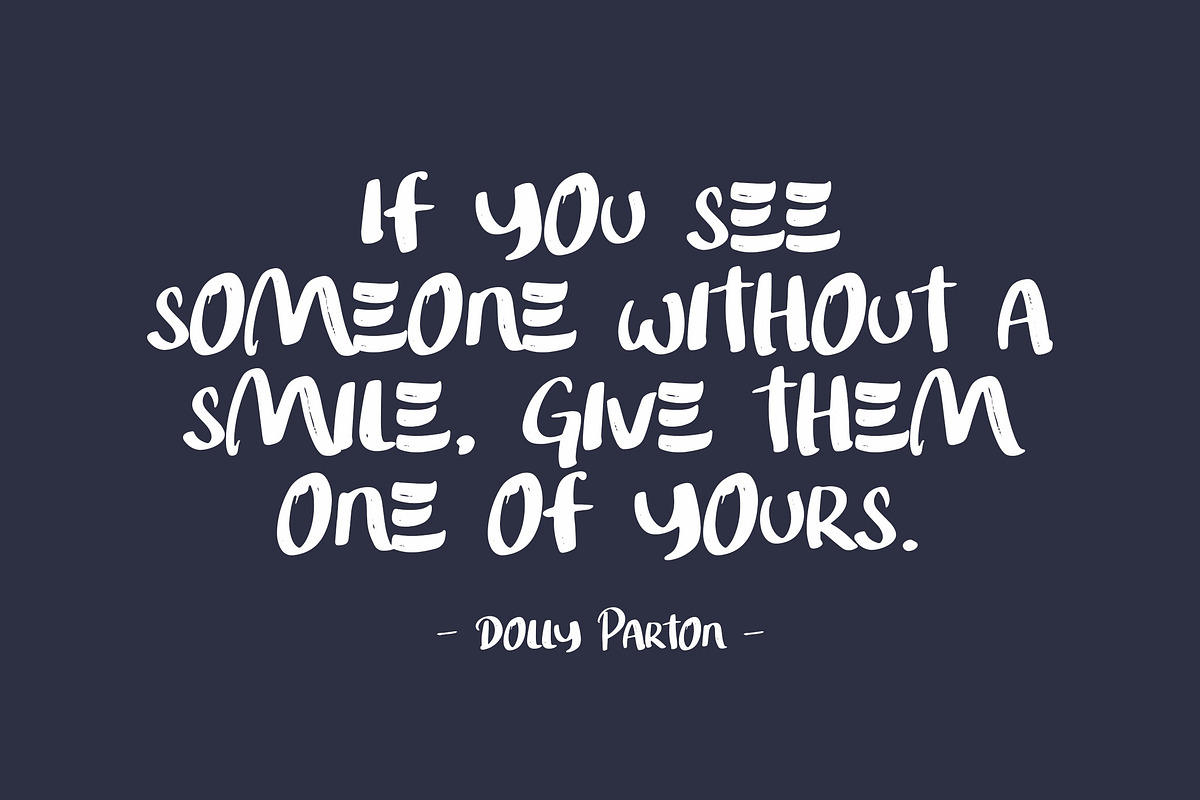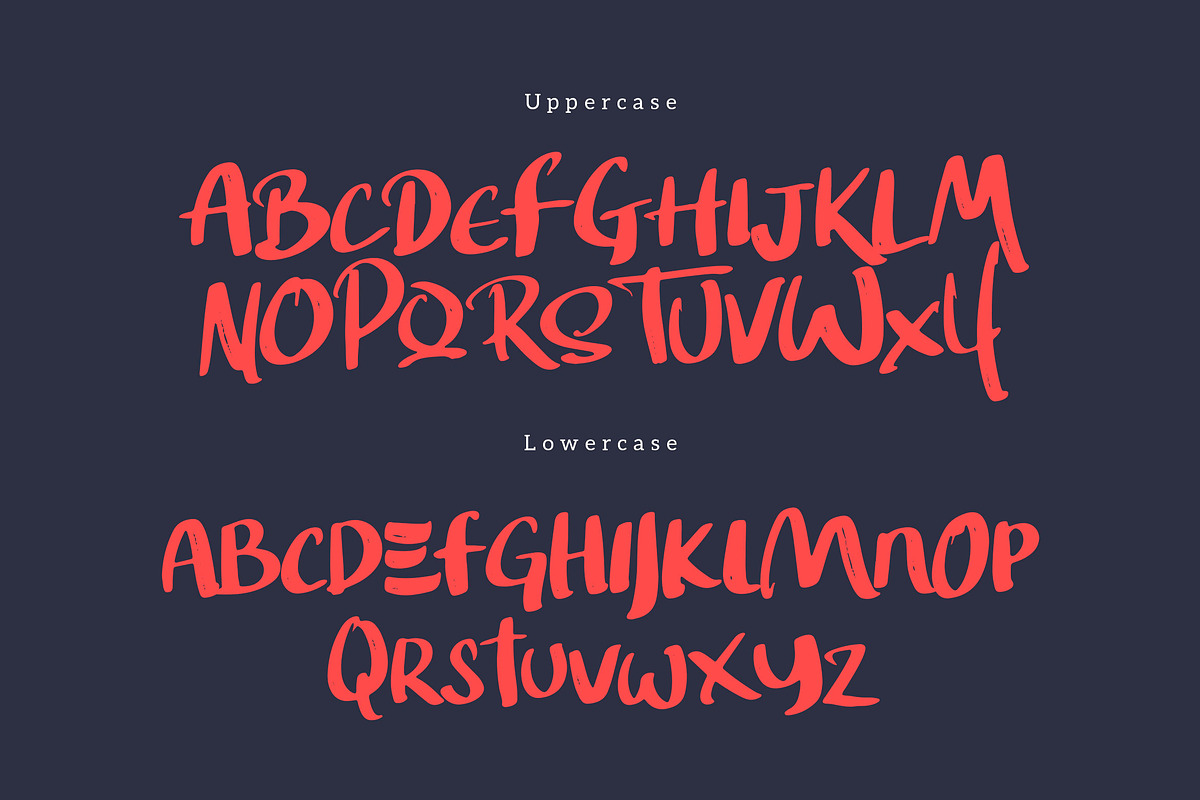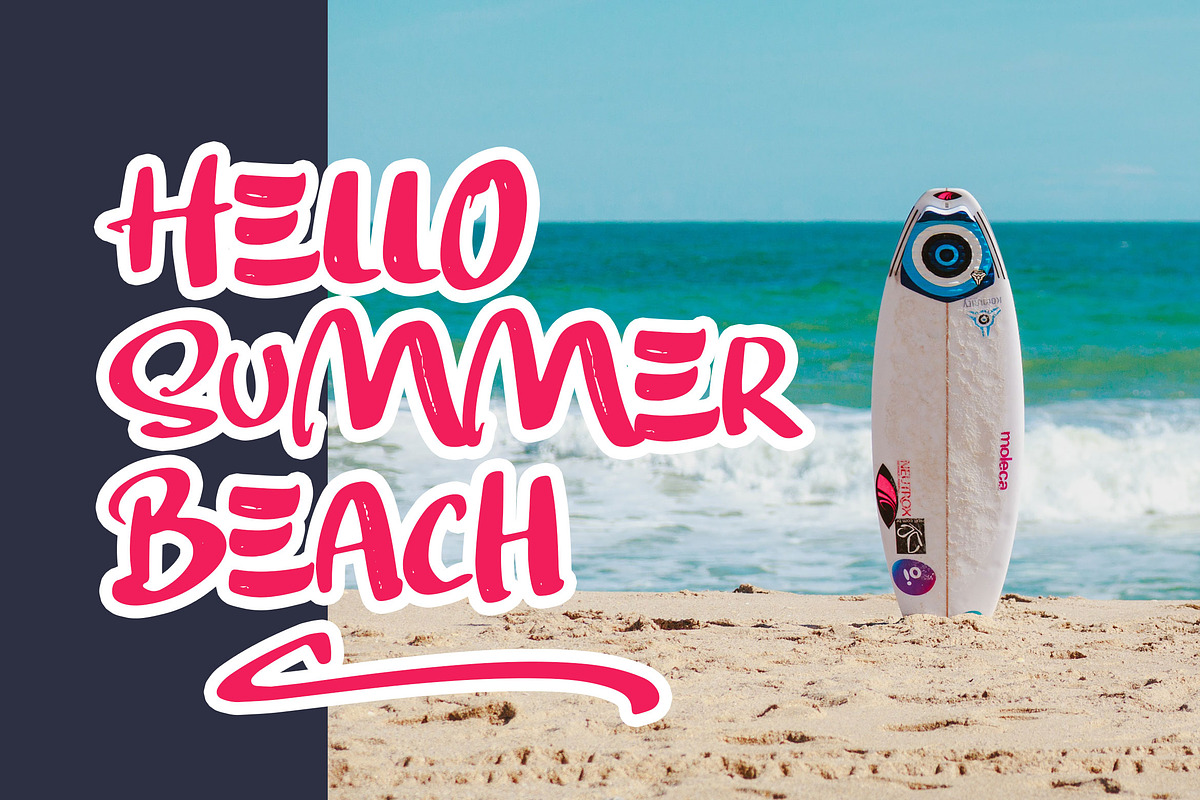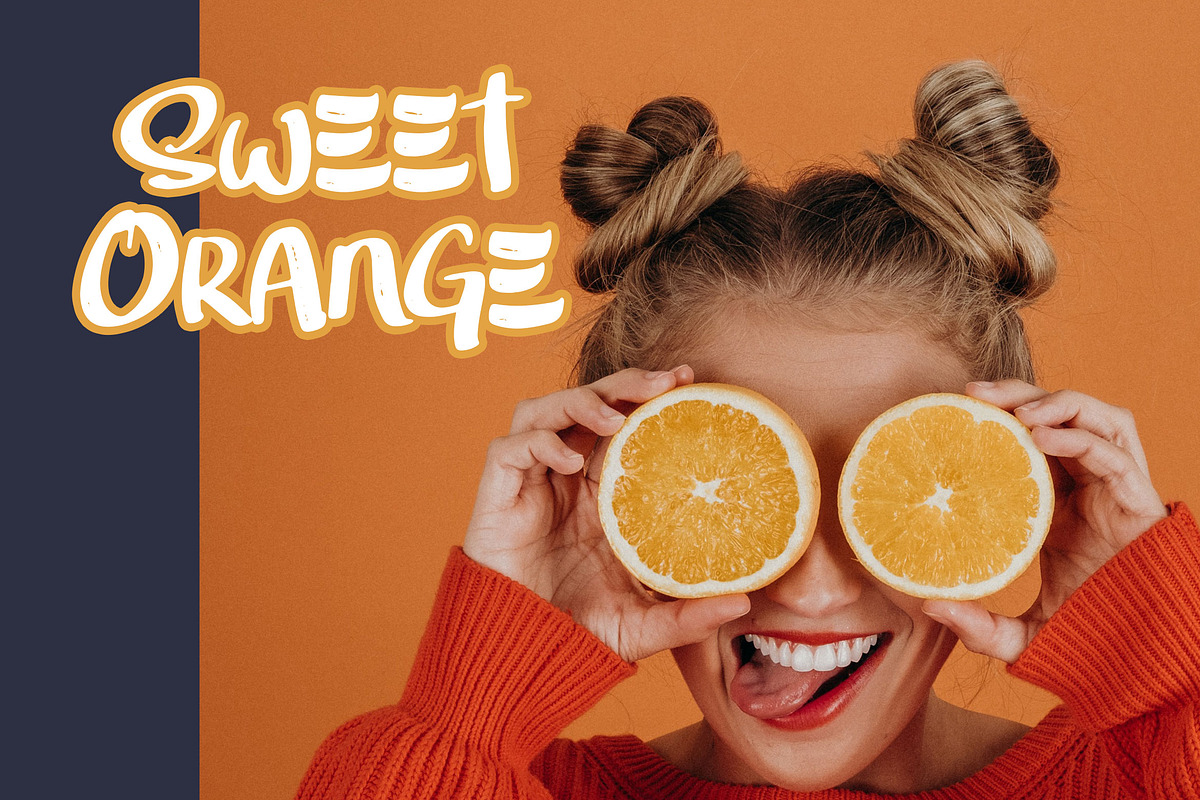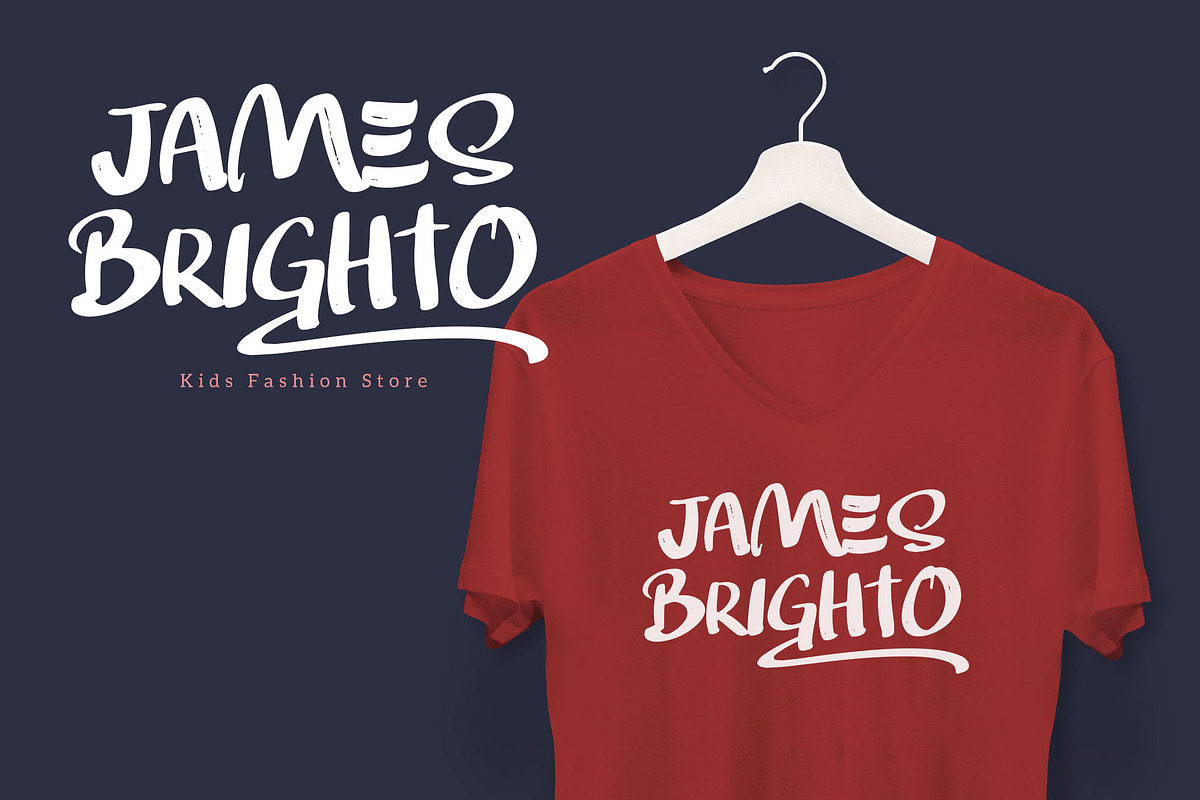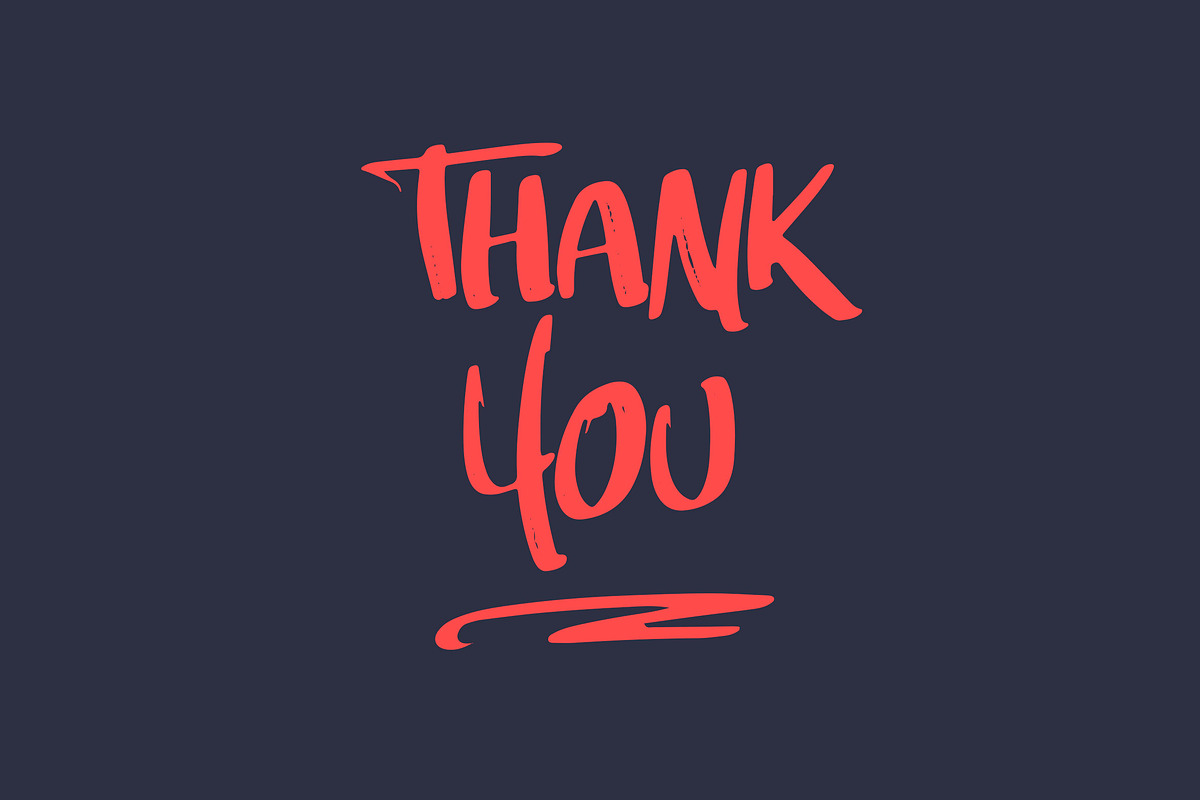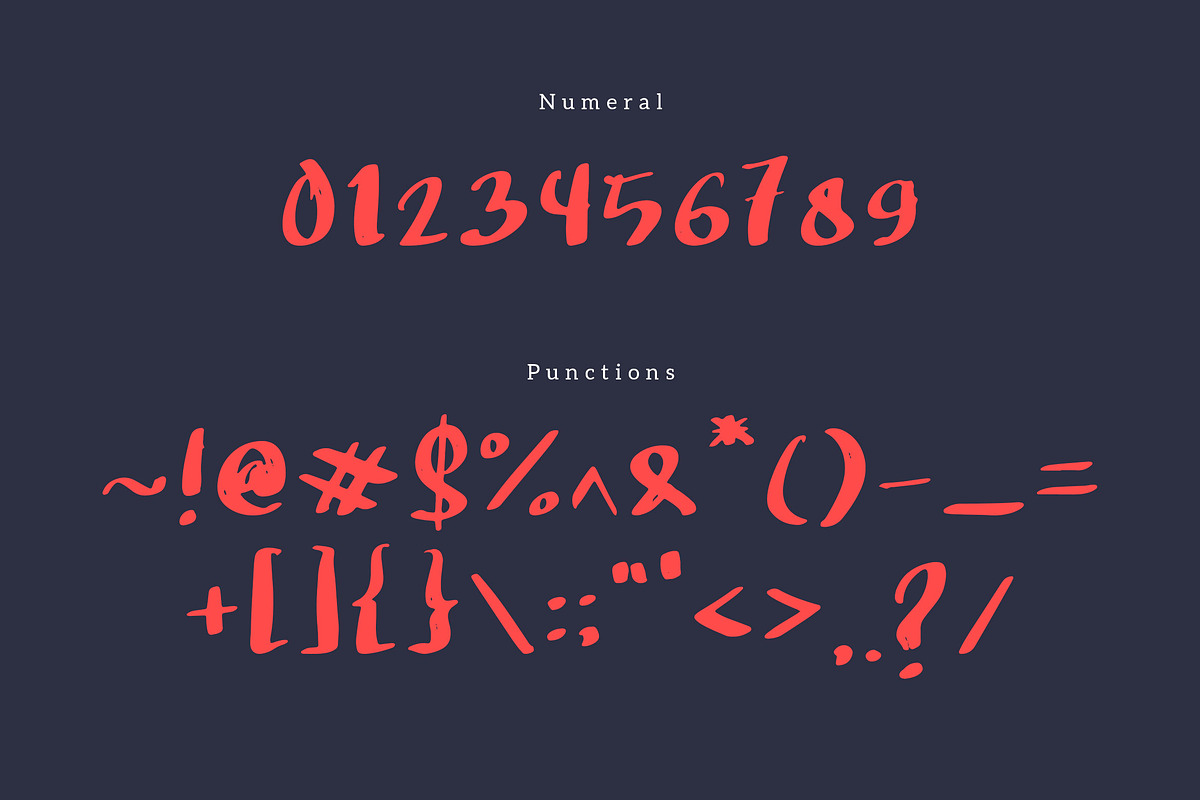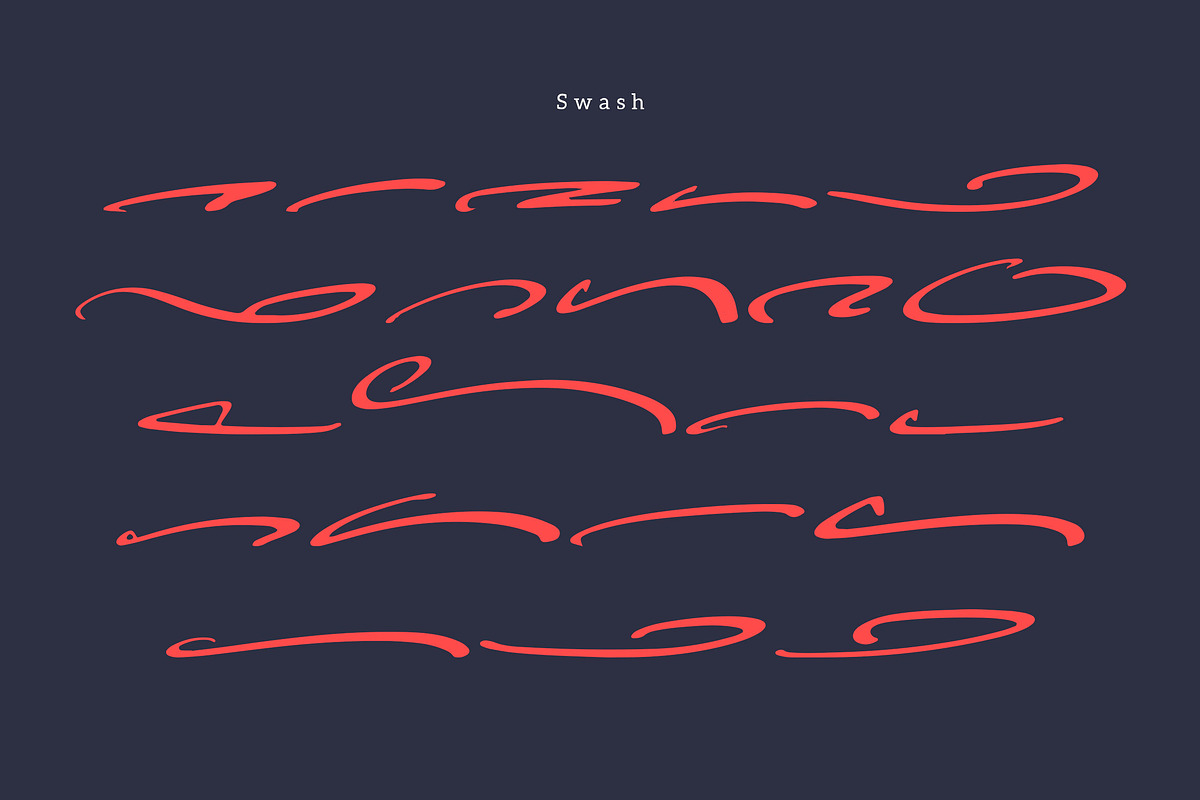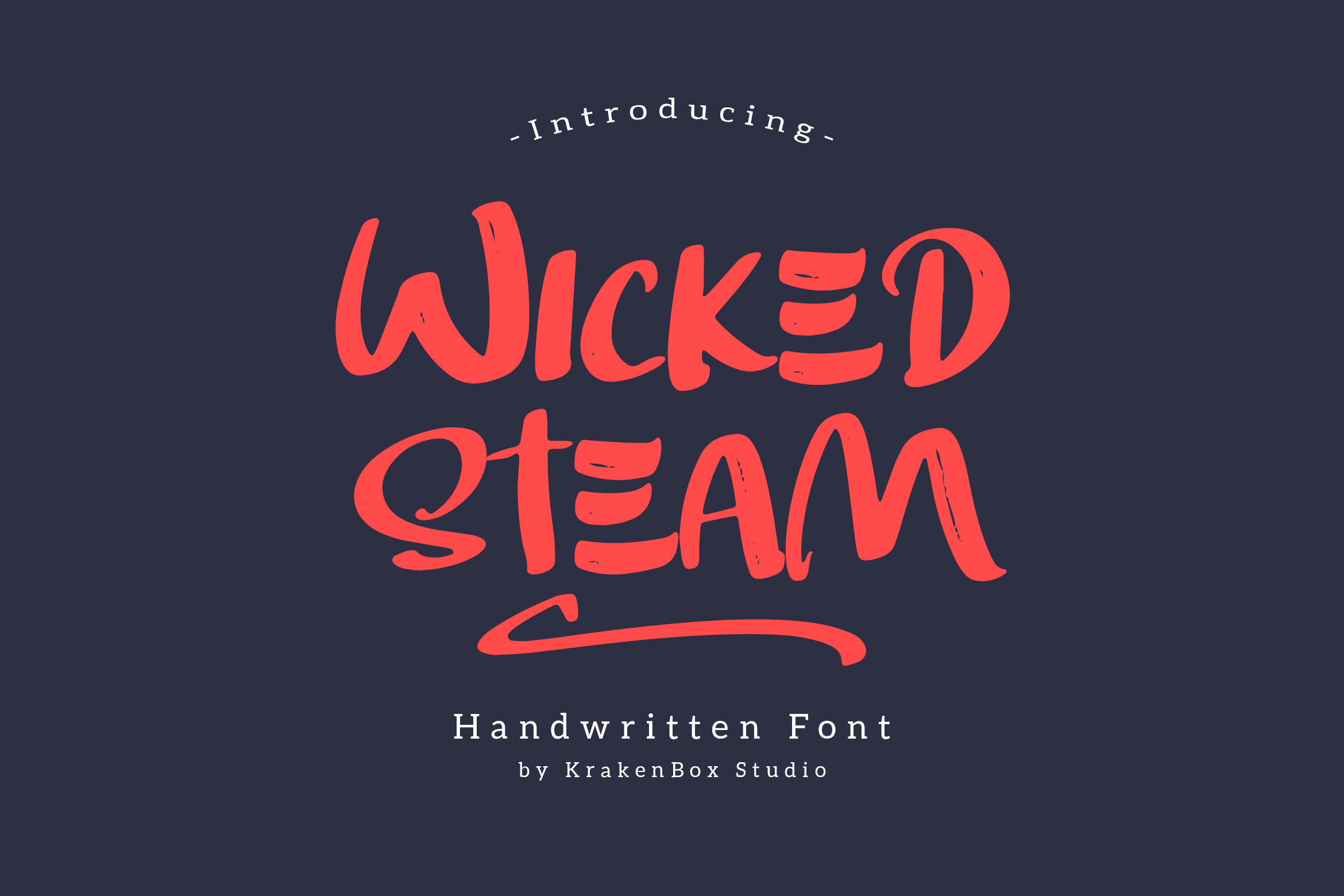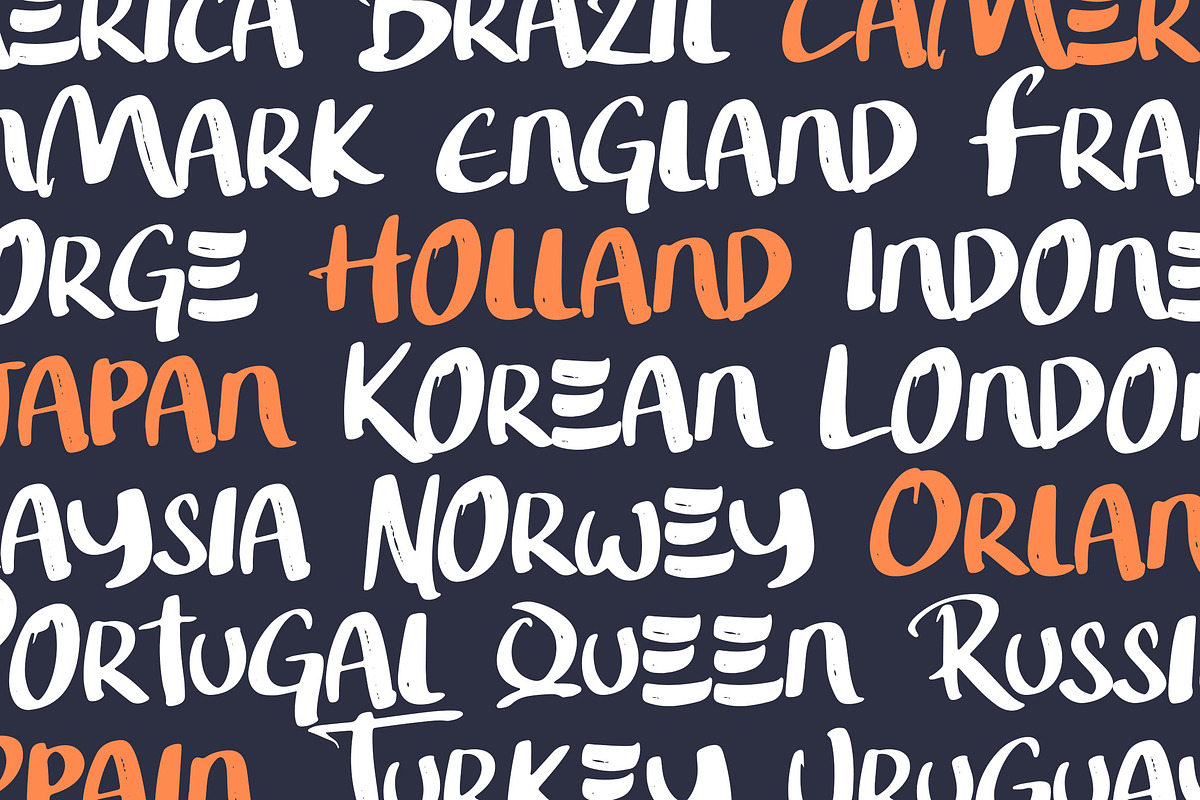
Wicked Steam - Handwritten Font
Wicked Steam is handwritten script font. It has casual, classy, fun, and Cool. It’s a great font for fashion, apparel projects, signature, album cover, logo, branding, magazine, social media, & advertisements, but also works great for other projects.